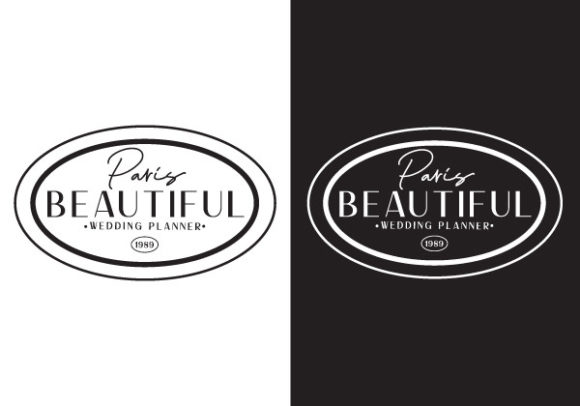
Typography Logo Beautiful Wedding Vector: A Designer's Guide
When you're tasked with creating a brand that feels both timeless and deeply personal, the choice of typeface becomes the cornerstone of your entire design. The Typography Logo Beautiful Wedding Vector is a specific design asset that addresses this need directly. It’s not just a font; it’s a curated typographic system designed to evoke elegance, romance, and a sense of bespoke craftsmanship. At its core, this asset is a vector-based logo template centered around sophisticated typography. It typically features a harmonious blend of a flowing script font for a primary wordmark—often a name or a core brand term—paired with a clean, complementary serif font or sans serif font for supporting text like taglines, dates, or descriptors.
The visual personality of this kind of asset is one of refined grace. The script element usually has high contrast in its strokes, with delicate swashes and ligatures that connect letters in a fluid, natural way. This isn't a casual, bouncy handwritten font; it's a polished, premium font style where every curve is considered. The accompanying text is often set in a lightweight, spaced-out serif or sans serif, creating a clear visual hierarchy that guides the viewer's eye from the expressive logo to the informational details. The overall appeal lies in its versatility within a specific aesthetic—it feels equally at home on a wax-sealed envelope, a minimalist website, and the label of an artisan product.
Where This Typography Style Truly Shines
Understanding the ideal applications for the Typography Logo Beautiful Wedding Vector is key to using it effectively. Its primary domain is, unsurprisingly, the wedding industry. Think beyond just the couple's names on a sign. This asset is perfect for creating cohesive brand identity suites for wedding planners, photographers, florists, and venues. It can define the look of save-the-dates, invitations, menus, ceremony programs, and thank-you cards. The consistency it provides across all these touchpoints elevates the entire event's perceived value.
However, its utility extends far beyond nuptials. The elegant, romantic aesthetic is a powerful tool in editorial design and packaging design. A lifestyle magazine, a blog focusing on home décor, or a boutique skincare brand can leverage this typography to communicate luxury, care, and authenticity. It works beautifully for social media graphics for businesses in the beauty, fashion, or gourmet food spaces, where a touch of sophistication is required to stand out. For web design, it can serve as a stunning hero logo on an "About" page or as the defining type for a high-end product line, provided the surrounding interface remains clean to let the typography breathe.
The Practical Impact on Your Project's Success
Choosing a font like this is a strategic decision that influences several critical aspects of a design. First, it directly impacts readability and visual hierarchy. The high-contrast script is designed for impact at larger sizes, making it perfect for logos and headlines. The supporting text is chosen for its legibility at smaller sizes, ensuring important details aren't lost. This pairing creates an immediate and clear structure for information, which is fundamental to good modern typography.
More profoundly, it shapes brand perception. The consistent use of this creative font across all materials builds recognition and conveys a specific set of values: elegance, attention to detail, and a personal touch. For a small business owner, this can be the difference between being perceived as amateur and being seen as a established, professional brand. The font becomes an integral part of the brand's voice, speaking to the audience before they even read the words.
Practical Guidance for Selection and Use
Before integrating the Typography Logo Beautiful Wedding Vector into your project, conduct a simple evaluation. Does its personality align with your brand's core message? Test it in context: place the logo mockup on a website screenshot, a product photo, or a printed material mockup. Does it enhance the scene or clash with it?